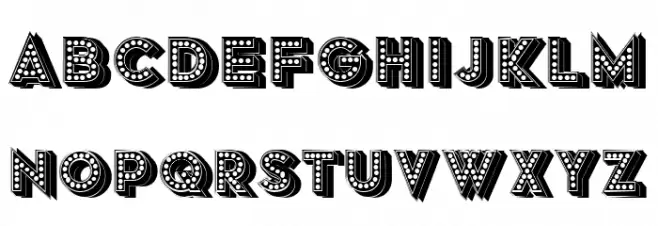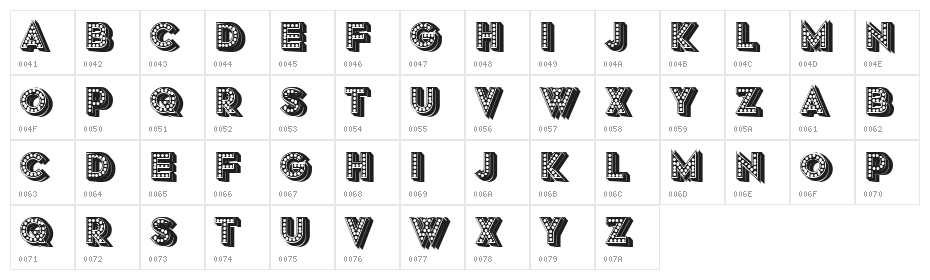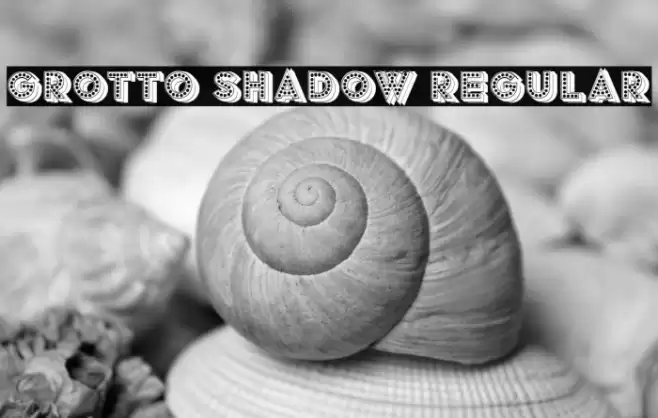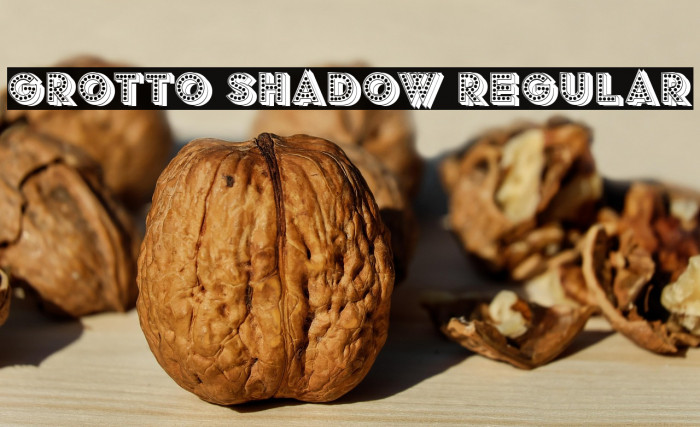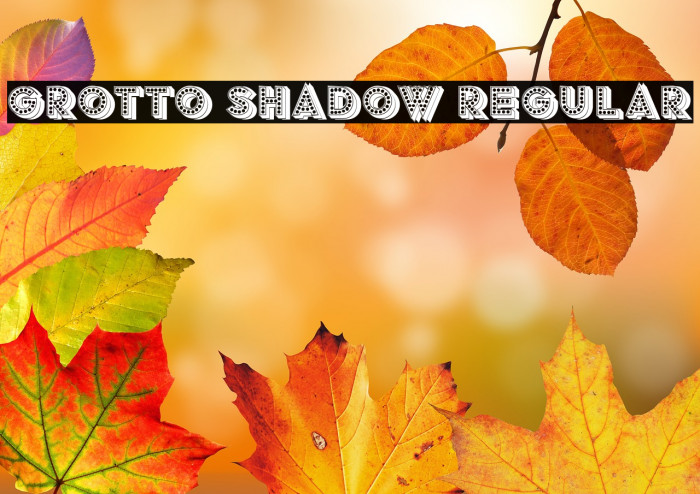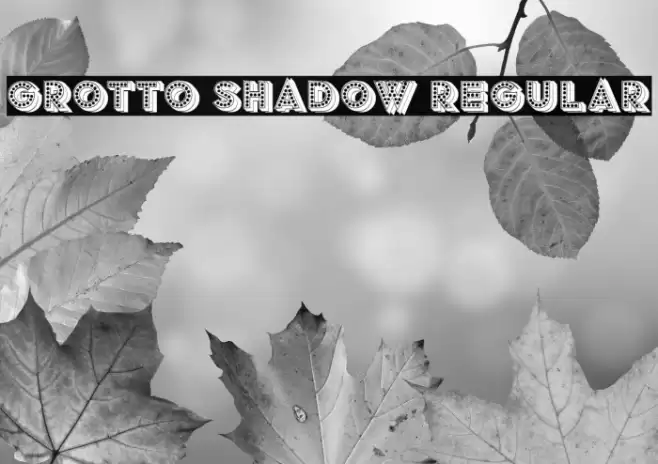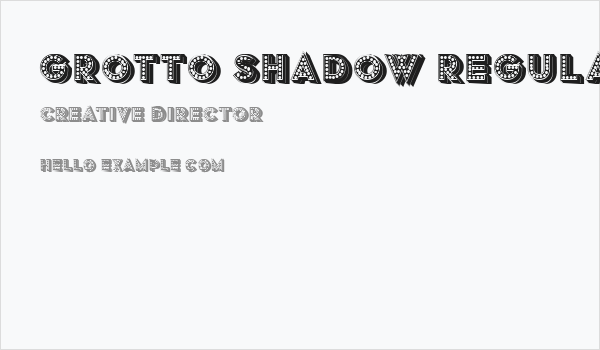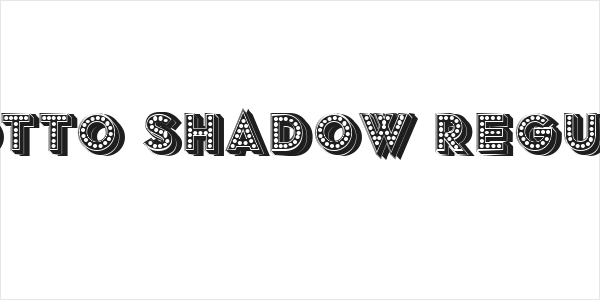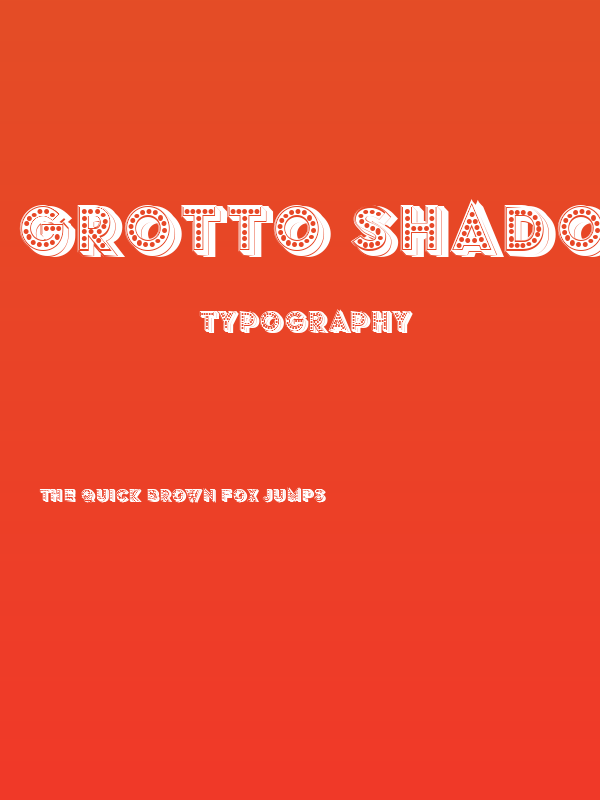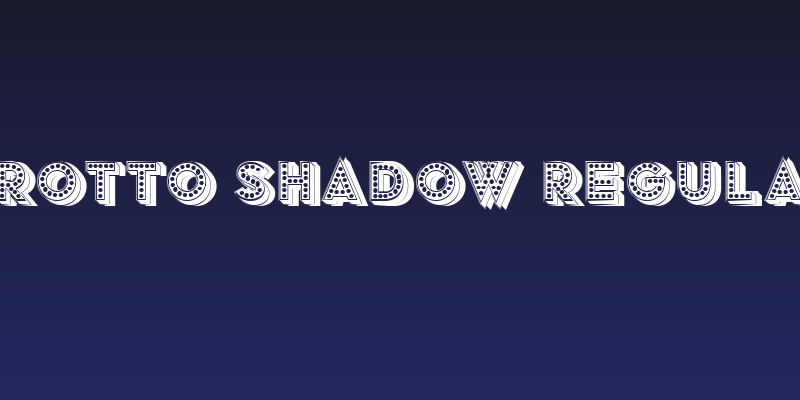
Grotto Shadow Regular Font
Grotto Shadow Regular Description
This font features a bold, decorative style with a distinct shadow effect that gives it a three-dimensional appearance. Each letter is adorned with a series of dots, adding a playful and eye-catching element. The characters are uppercase only, with a consistent width and height, creating a uniform look. The shadow effect is prominent, enhancing the depth and making the letters stand out. This font is ideal for creating a vintage or retro aesthetic, reminiscent of old marquee signs or circus posters. Its boldness and decorative details make it suitable for headlines or display purposes where attention is key.
| Proposed Projects | Ideal for vintage-themed posters, event invitations, signage, and branding that requires a bold statement. |